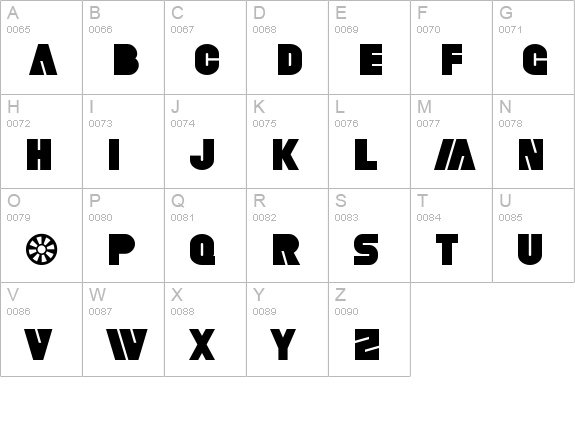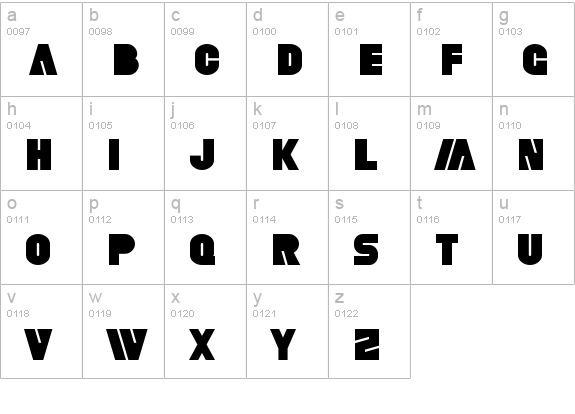
SF Fortune Wheel Font Details
SF Fortune Wheel is a magnificent font that brings a touch of elegance and sophistication to any design project. With its captivating curves and intricately designed letterforms, this font is sure to make a lasting impression. What sets SF Fortune Wheel apart is not just its stunning aesthetics, but also its versatility. Whether you're designing a logo, creating eye-catching headlines, or crafting personalized invitations, this font has the ability to adapt and enhance any creative vision. But what makes SF Fortune Wheel truly special is that it is freely available to download at FontsMarket.com. Yes, you read that right! This exceptional font can be yours without any cost or hassle. So, whether you're a professional designer or simply someone with a passion for creativity, SF Fortune Wheel is the perfect addition to your font collection. Downloading SF Fortune Wheel is a breeze. Simply visit FontsMarket.com, find the font, and with a few clicks, it will be yours to use in all your design projects. The ease of access and the fact that it is free make SF Fortune Wheel a must-have font for designers of all levels. With SF Fortune Wheel in your arsenal, you'll have the power to create visually stunning and captivating designs that leave a lasting impact. So don't miss out on this extraordinary opportunity to enhance your creative projects with a font that is both beautiful and free. Download SF Fortune Wheel today and elevate your designs to new heights.